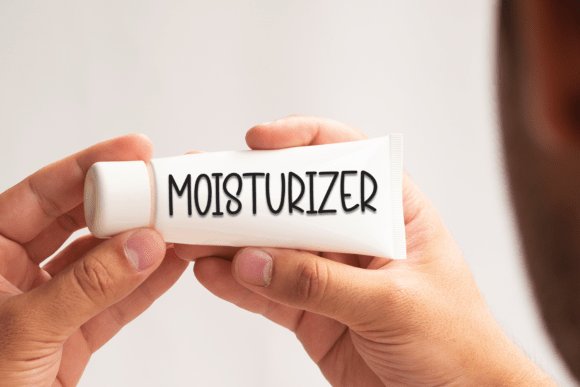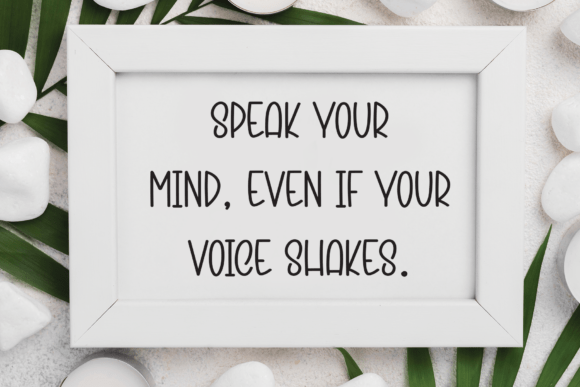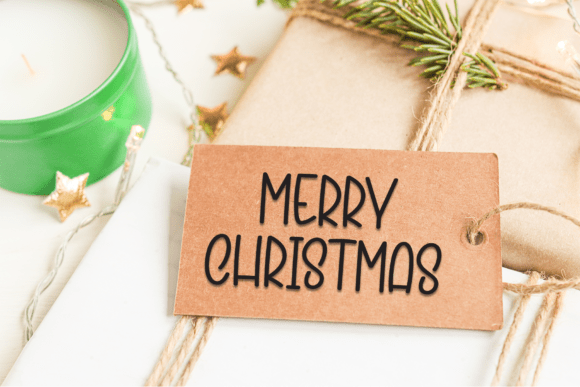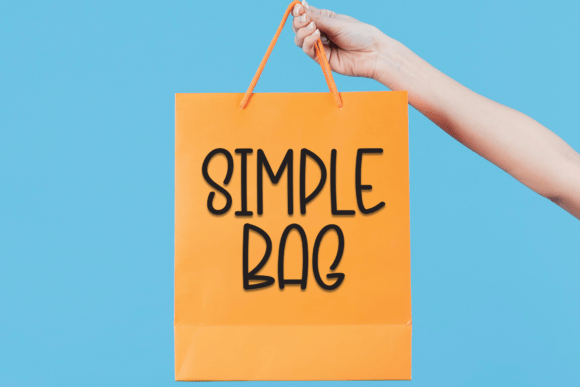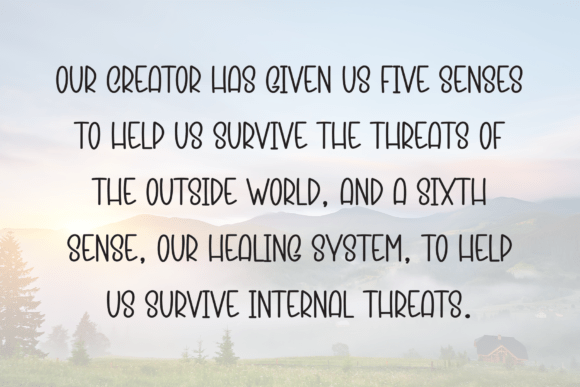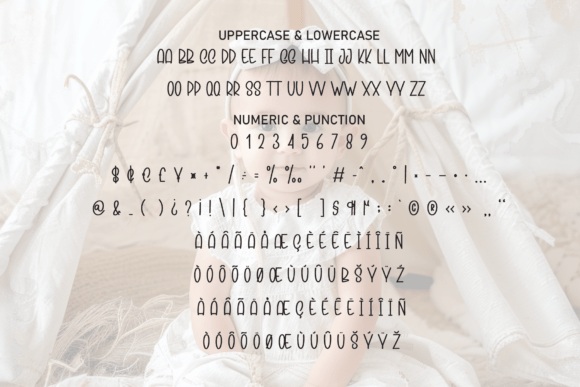
Baby Boho Font: The Perfect Blend of Modern Simplicity and Playful Charm
In the world of typography, fonts play a crucial role in conveying the tone and personality of a design. For designers and crafters looking for a font that embodies a casual, yet stylish vibe, Baby Boho is an excellent choice. This article will delve into the features, benefits, and uses of the Baby Boho font, exploring how it can elevate your designs and add a fresh touch to your projects.
What is Baby Boho Font?
Baby Boho is a casual display font that seamlessly blends modern simplicity with a playful, approachable charm. Its clean shapes, soft edges, and well-balanced letterforms make it an ideal choice for a wide range of design applications. Whether you’re working on posters, branding materials, packaging, or social media graphics, Baby Boho is designed to capture the essence of relaxed design while maintaining clarity and style.
Key Features of Baby Boho Font
- Clean Shapes: Baby Boho features clean, geometric shapes that provide a modern and fresh look to any design.
- Soft Edges: The soft edges of the font add a touch of playfulness and approachability, making it perfect for designs that require a friendly tone.
- Well-Balanced Letterforms: The font’s well-balanced letterforms ensure that each character is easily readable, making it suitable for a wide range of applications.
- Versatile Character: Baby Boho has a versatile character that can be used in various design contexts, from posters and branding to packaging and social media graphics.
- Eye-Catching Appeal: The font’s unique blend of modern simplicity and playful charm makes it stand out, adding an eye-catching appeal to any design.
Benefits of Using Baby Boho Font
The Baby Boho font offers several benefits to designers and crafters, including:
- Improved Readability: The font’s clean shapes and well-balanced letterforms ensure that your text is easily readable, even at smaller sizes.
- Enhanced Personality: Baby Boho adds a playful and friendly touch to any design, allowing you to convey your brand’s personality and tone.
- Versatility: The font’s versatility makes it suitable for a wide range of design applications, from print materials to digital graphics.
- Time-Saving: With Baby Boho, you can create professional-looking designs quickly and efficiently, saving you time and effort.
Uses of Baby Boho Font
Baby Boho is an incredibly versatile font that can be used in various design contexts, including:
- Posters: Add a fresh and friendly touch to your posters with Baby Boho, making them stand out and grab attention.
- Branding: Use Baby Boho to create a consistent brand identity that reflects your company’s personality and tone.
- Packaging: The font’s playful and approachable charm makes it perfect for packaging designs that require a friendly and modern look.
- Social Media Graphics: Elevate your social media graphics with Baby Boho, adding a touch of personality and style to your posts and stories.
Tips for Using Baby Boho Font Effectively
To get the most out of Baby Boho, consider the following tips:
- Pair with Other Fonts: Experiment with pairing Baby Boho with other fonts to create a unique and visually appealing combination.
- Adjust Font Size: Adjust the font size to suit your design needs, using larger sizes for headings and smaller sizes for body text.
- Play with Colors: Take advantage of Baby Boho’s versatility by experimenting with different colors and textures to add depth and interest to your design.
In conclusion, Baby Boho is a fantastic font that offers a perfect blend of modern simplicity and playful charm. Its clean shapes, soft edges, and well-balanced letterforms make it an excellent choice for designers and crafters looking to add a fresh and friendly touch to their designs. With its versatility, readability, and eye-catching appeal, Baby Boho is sure to become a staple in your font collection.
Whether you’re working on a poster, branding materials, packaging, or social media graphics, Baby Boho is an excellent choice. So why not give it a try and see how it can elevate your designs and add a touch of personality to your projects?